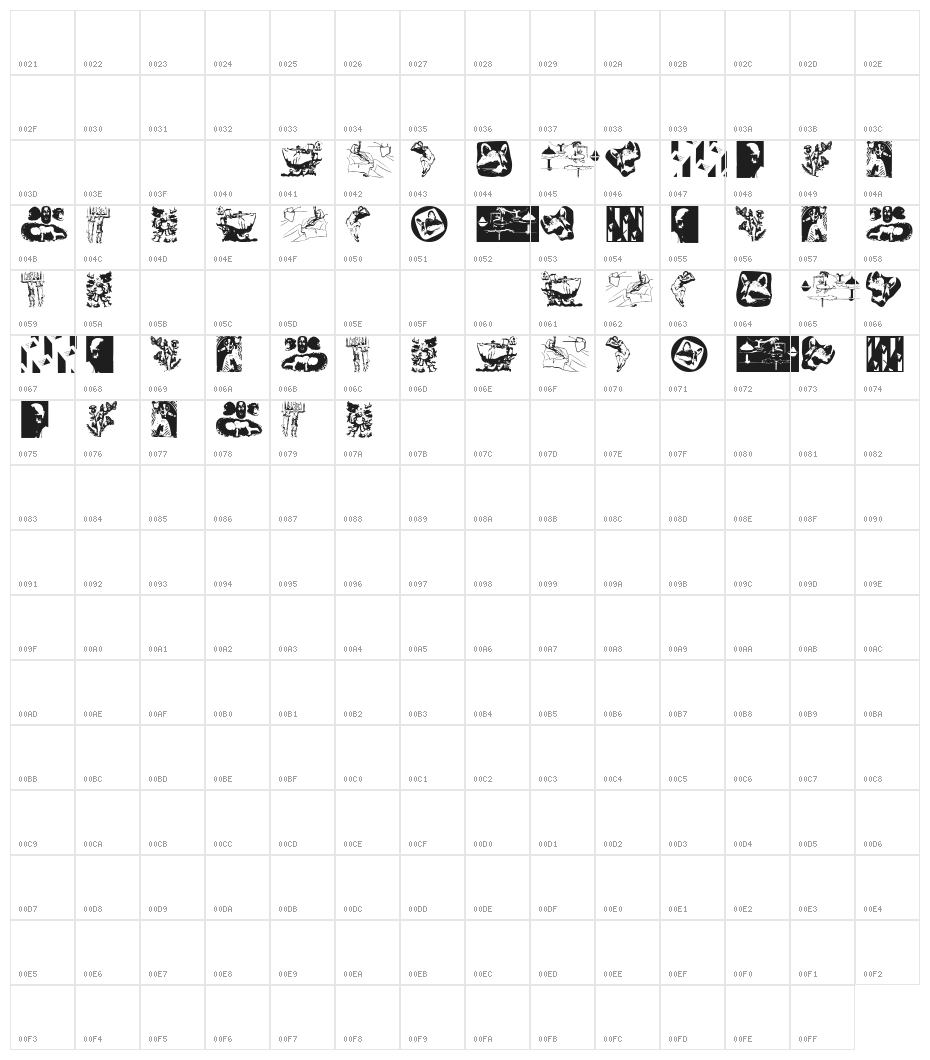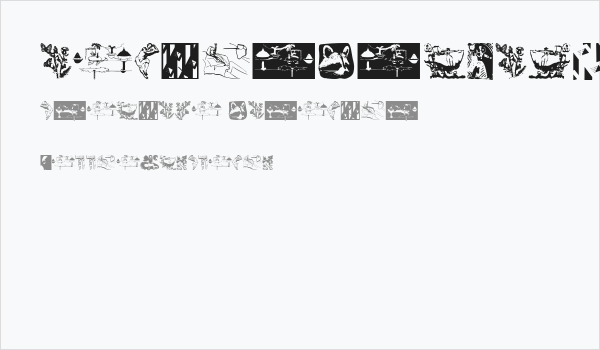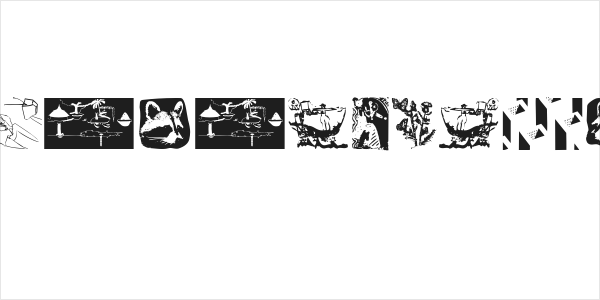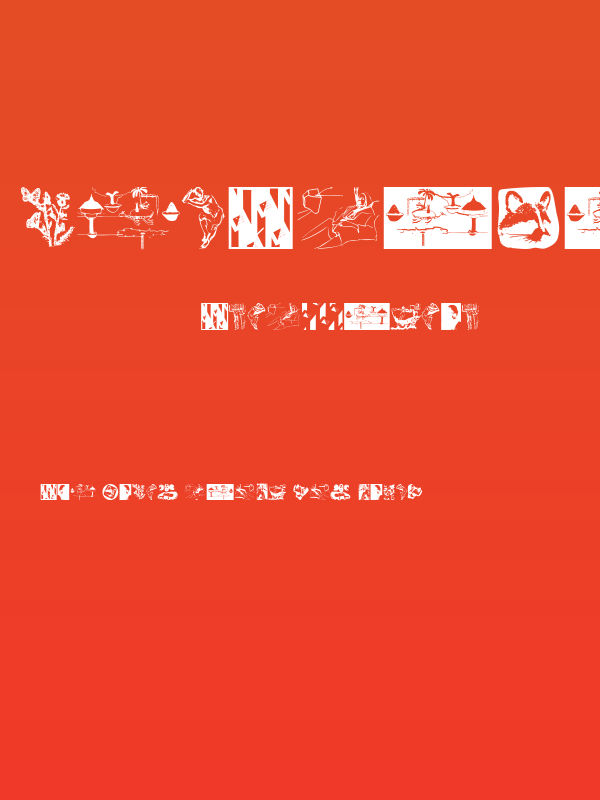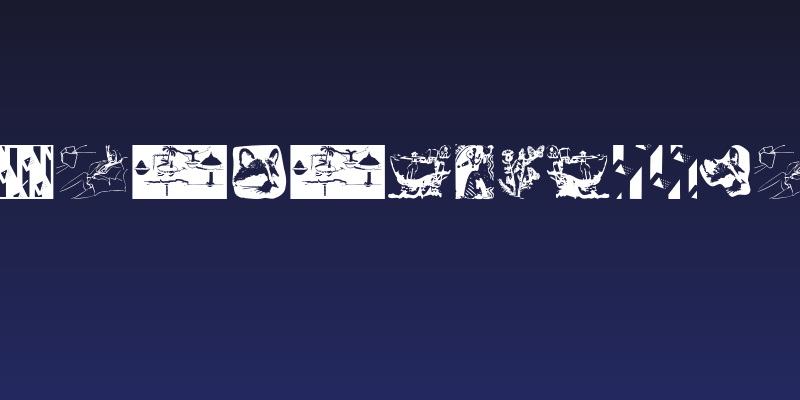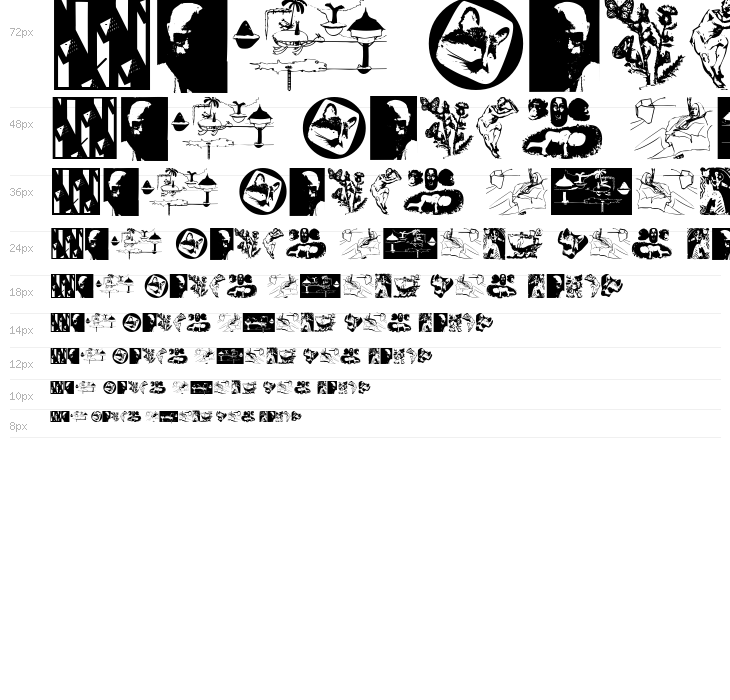
VectorDrawingsOne Font
VectorDrawingsOne Description
This set features a collection of intricate vector drawings that replace traditional alphanumeric characters. Each character is represented by a detailed illustration, ranging from animals to abstract designs, providing a unique and artistic approach to typography. The designs are highly detailed, with a mix of solid and outlined elements, creating a dynamic visual experience. The characters are not uniform in style, offering a diverse range of artistic expressions within the same set. This collection is ideal for creative projects that require a distinctive and artistic flair.
| Overall Style | Artistic, Decorative |
| Use Case | Logos, Artistic Branding, Posters |
| Proposed Projects | Ideal for creative projects such as posters, album covers, and artistic branding that require a unique visual element. |